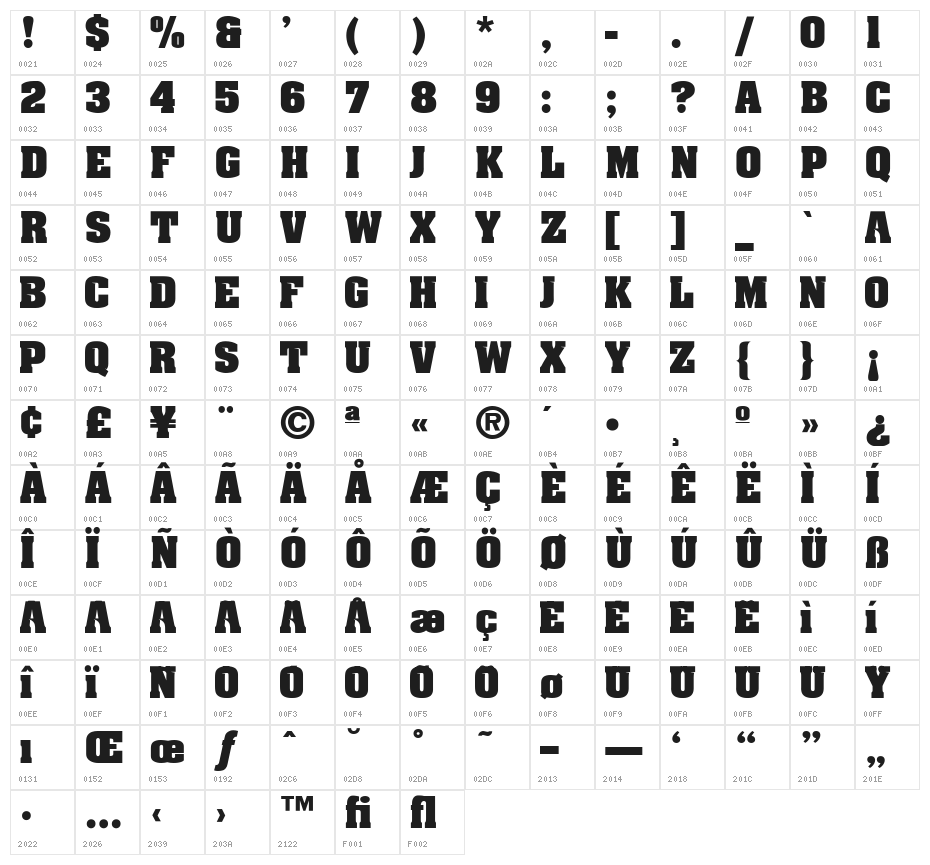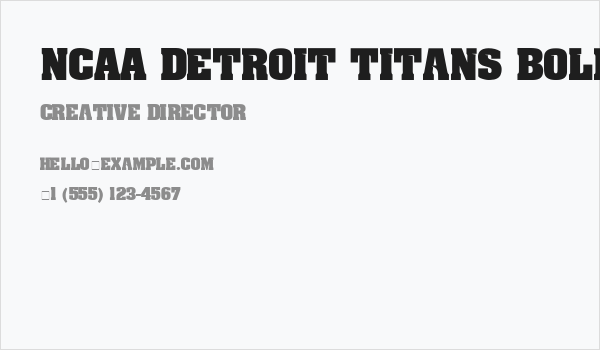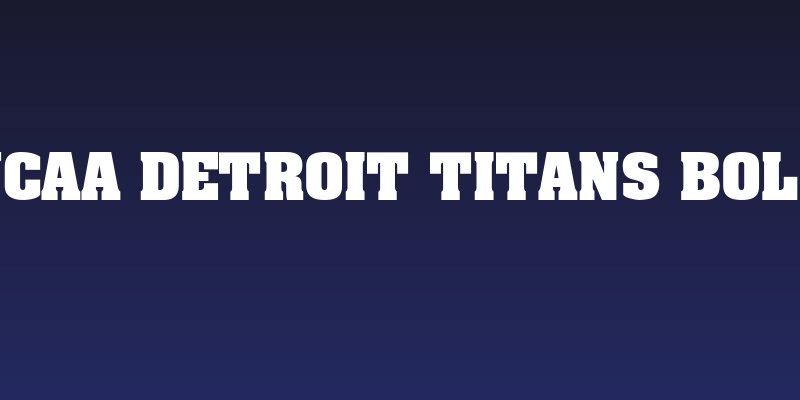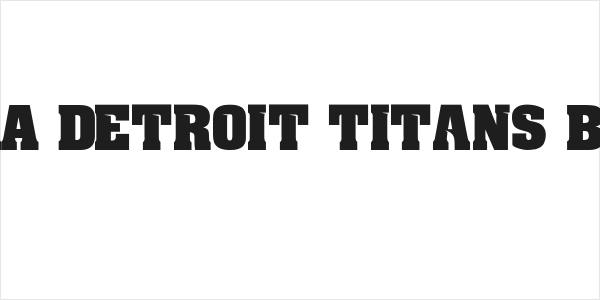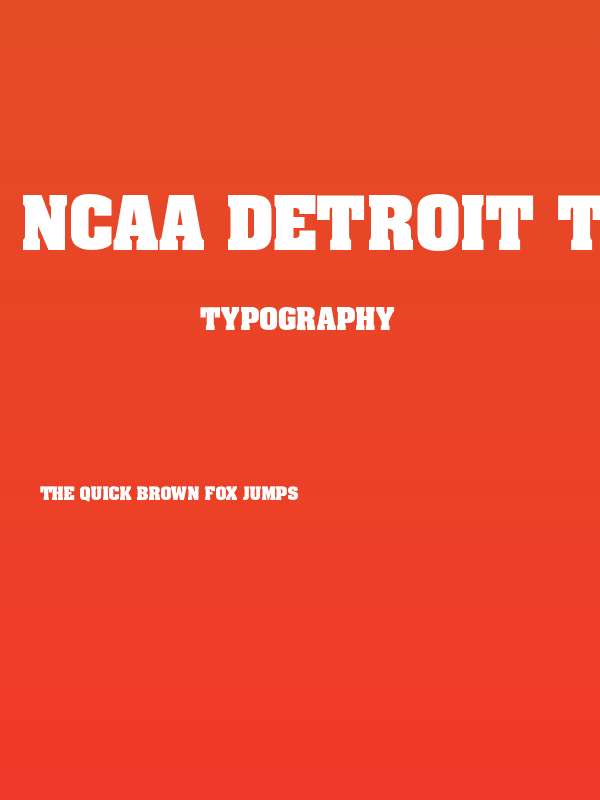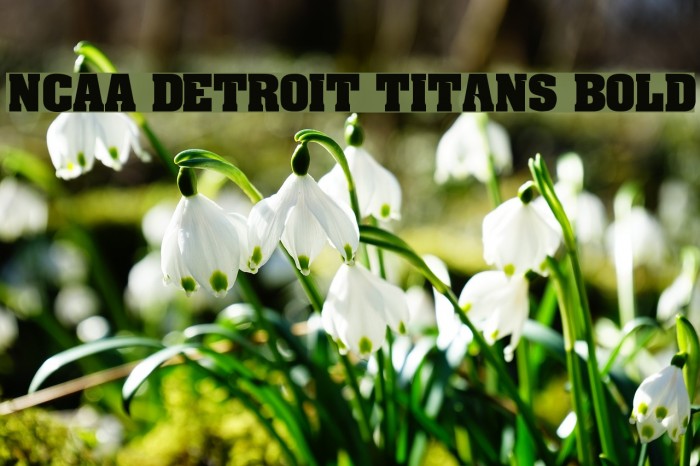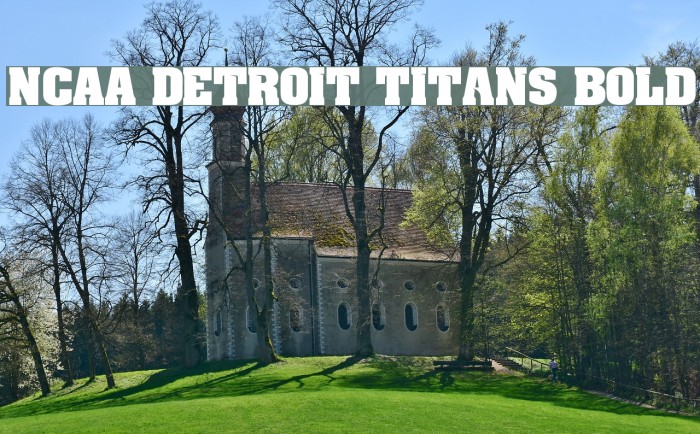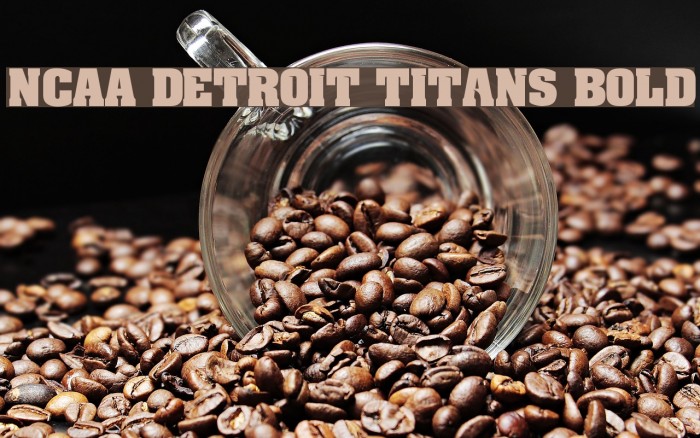
NCAA Detroit Titans Bold Font
NCAA Detroit Titans Bold Description
This bold and impactful typeface features strong, thick strokes that convey a sense of power and authority. The uppercase letters are robust and commanding, with a uniform width that ensures readability and presence. The numbers and special characters maintain the same boldness, making them suitable for attention-grabbing headlines or titles. The font's design is straightforward yet striking, with minimal contrast in stroke thickness, emphasizing its bold nature. Its solid structure and clear lines make it ideal for projects that require a strong visual impact.
| Proposed Projects | Ideal for sports branding, posters, headlines, and any project requiring a strong visual impact. |